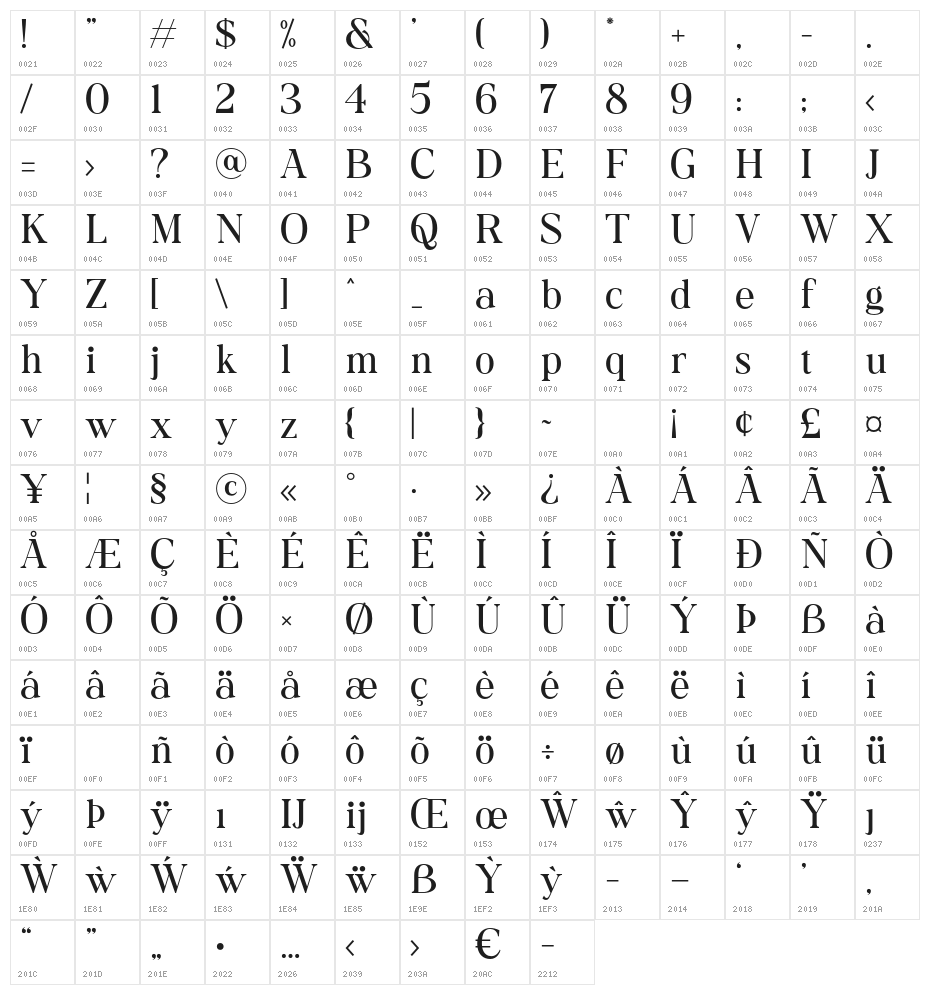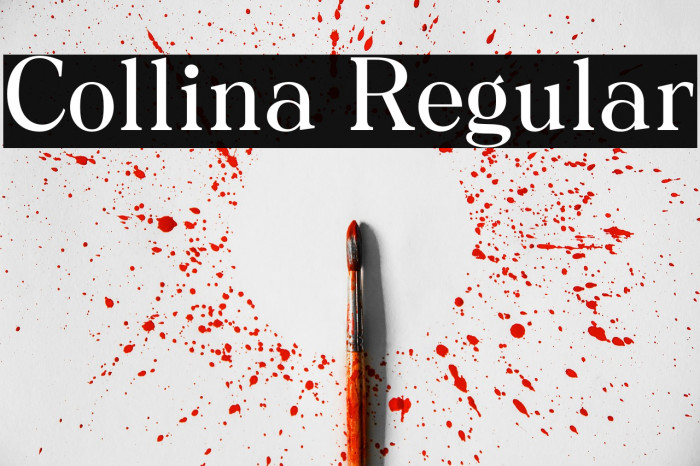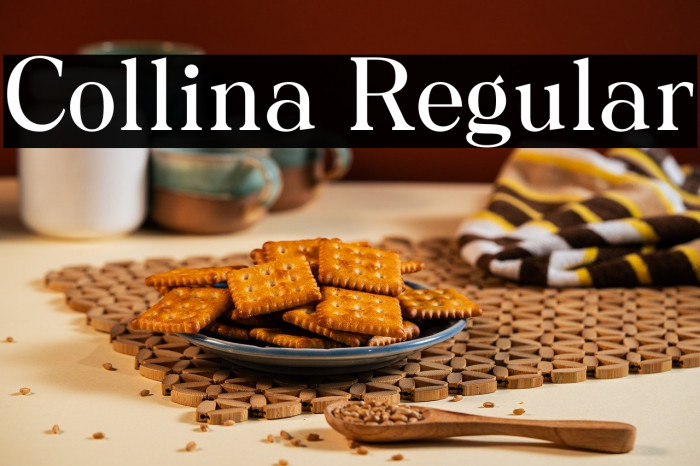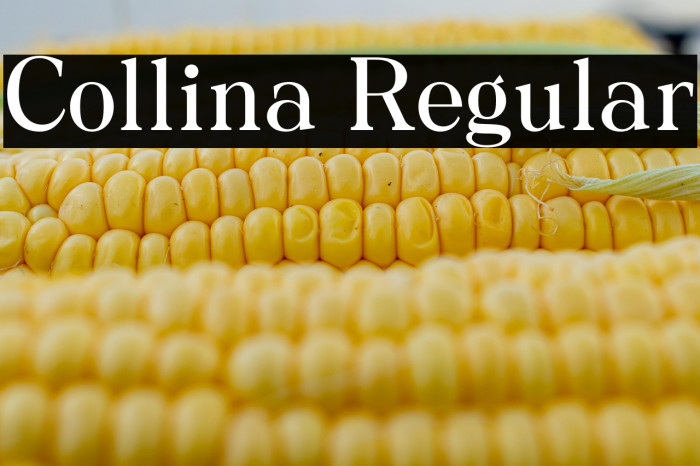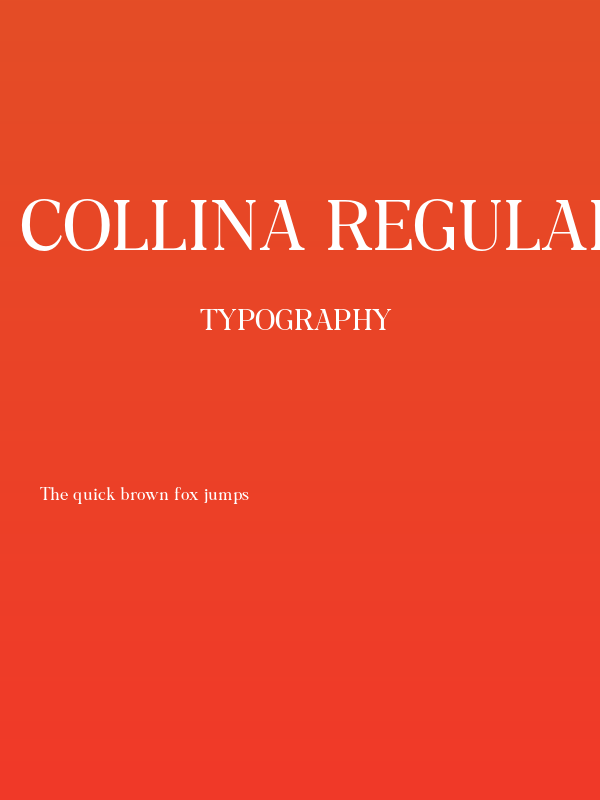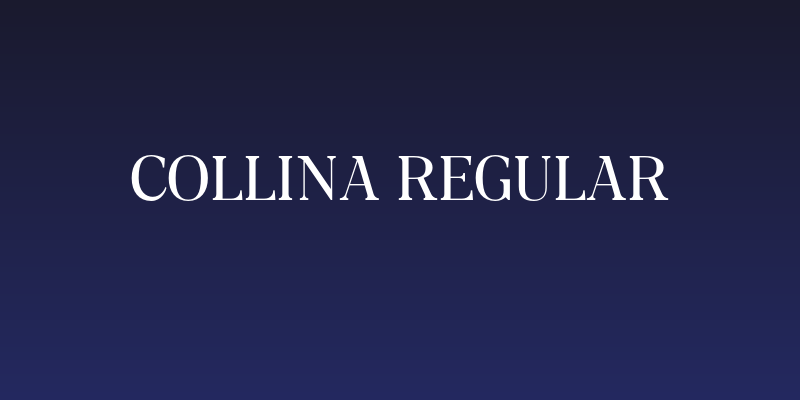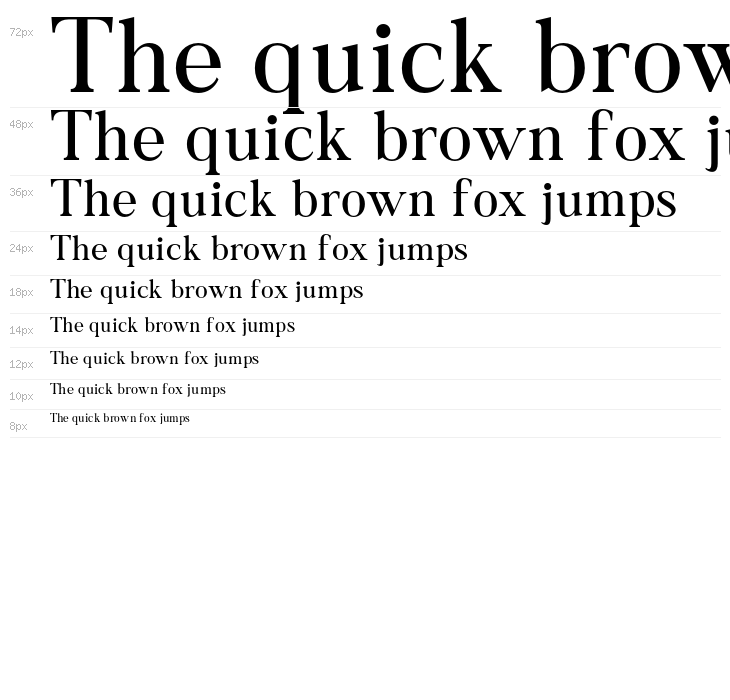
Collina Regular Font
Collina Regular Description
This font features a classic serif design with elegant and refined strokes. The uppercase letters exhibit a strong presence with balanced proportions, while the lowercase characters maintain a harmonious flow. The numerals are clear and distinct, ensuring readability. Special characters are crafted with precision, adding to the font's versatility. The overall appearance is sophisticated, making it suitable for formal and professional applications.
| Overall Style | Classic |
| Use Case | Headlines, Body text, Logos |
| Proposed Projects | Ideal for editorial design, book covers, formal invitations, and branding projects that require a touch of elegance. |